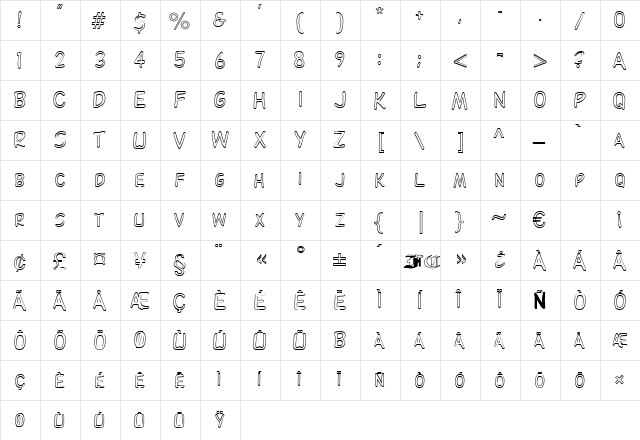
ResidenzOpen Regular
ResidenzOpen offers clean, dependable letterforms without strong stylistic allegiance, making it a practical choice for designers who need flexibility.